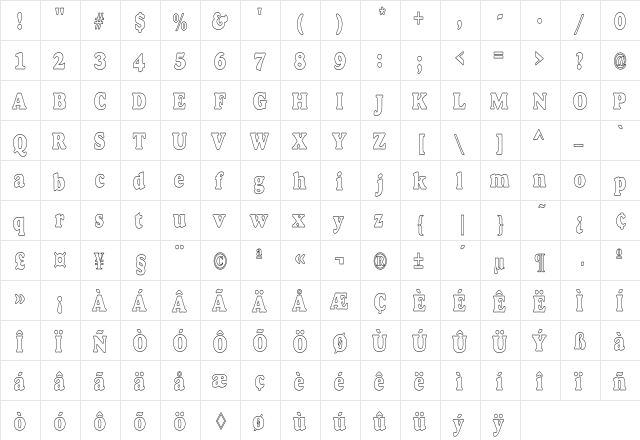
Alfredo Heavy Hollow Condensed Regular
Design Context for Alfredo Heavy Hollow Condensed Typeface
Alfredo Heavy Hollow Condensed takes a measured approach to typography — its balanced proportions and neutral character make it a reliable workhorse for both digital and print work. Its narrow stance lets it pack a punch even in space-constrained designs.
Pro Tip: Use Alfredo Heavy Hollow Condensed in both headline and body roles to test its range before committing to a single application.